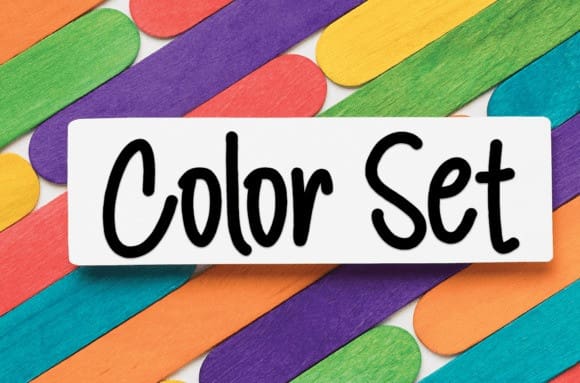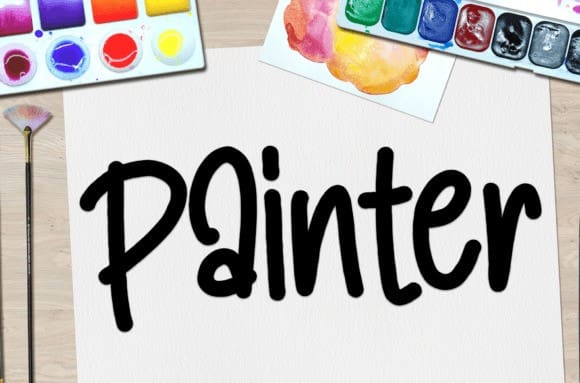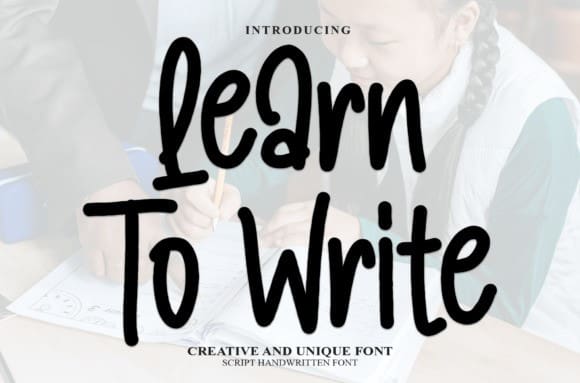
Learn To Write Font
Learn to Write Font is a sweet and friendly handwritten font. Cute and fun, this font is ideal for writing wedding invitations, cards, or any other design that might need a fun touch!